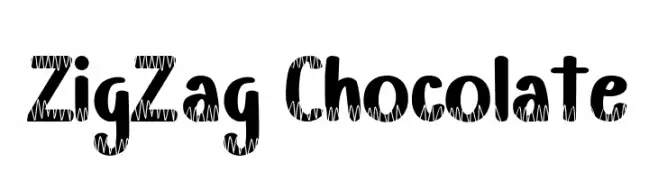
ZigZag Chocolate Font
Font by nomlimofont
A playful font with bold, rounded letters and a zigzag pattern.
Font by nomlimofont - Personal-use only. For commercial use please contact owner.
A playful, bold font with rounded edges and a bubbly appearance.
jusy Font
Font by nomlimofont - Personal-use only. For commercial use please contact owner.
A bold, playful handwritten font with a lively and informal style.
KING EIDER Font
Font by nomlimofont
A playful, bold font with rounded edges and a whimsical style.
American Kids Font
Font by nomlimofont
A playful, bold font with star motifs and rounded, condensed letters.
Gods Truck Font
Font by nomlimofont - Personal-use only. For commercial use please contact owner.
A bold, playful handwritten font with a dynamic and energetic style.
Fattick Font
Font by nomlimofont - Personal-use only. For commercial use please contact owner.
A bold, expressive script font with a handwritten feel.
POWER OF NATURE Font
Font by nomlimofont
A decorative font featuring nature-inspired illustrations within each character.
Speak Out Font
Font by nomlimofont - Personal-use only. For commercial use please contact owner.
A bold, handwritten font with a lively and dynamic style.
Green Salad Font
Font by nomlimofont - Personal-use only. For commercial use please contact owner.
A bold, playful handwritten font with dynamic strokes and a casual flair.
Goblin Gank Font
Font by nomlimofont
A bold, playful font with exaggerated curves and a whimsical style.
Stay Athaliya Font